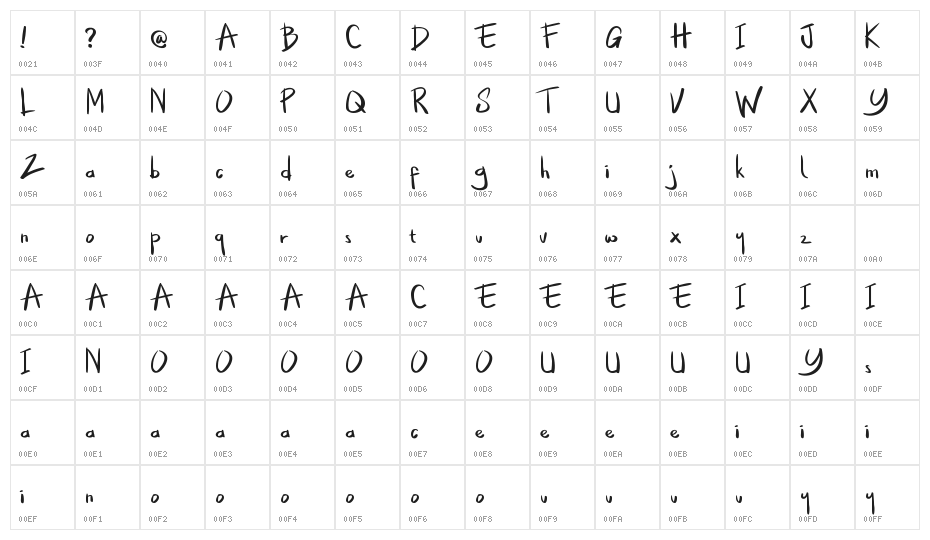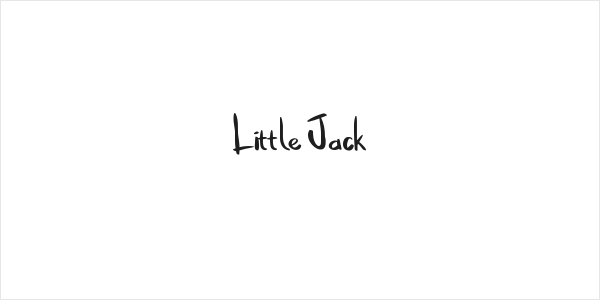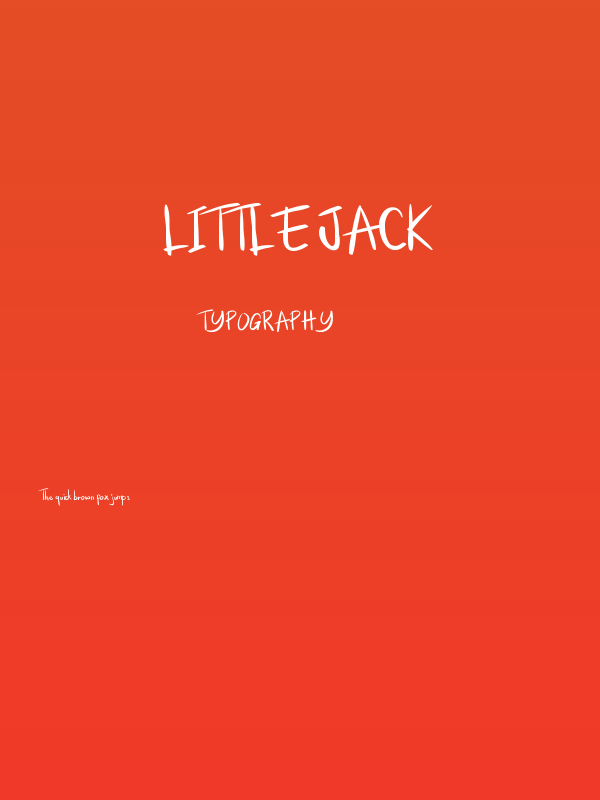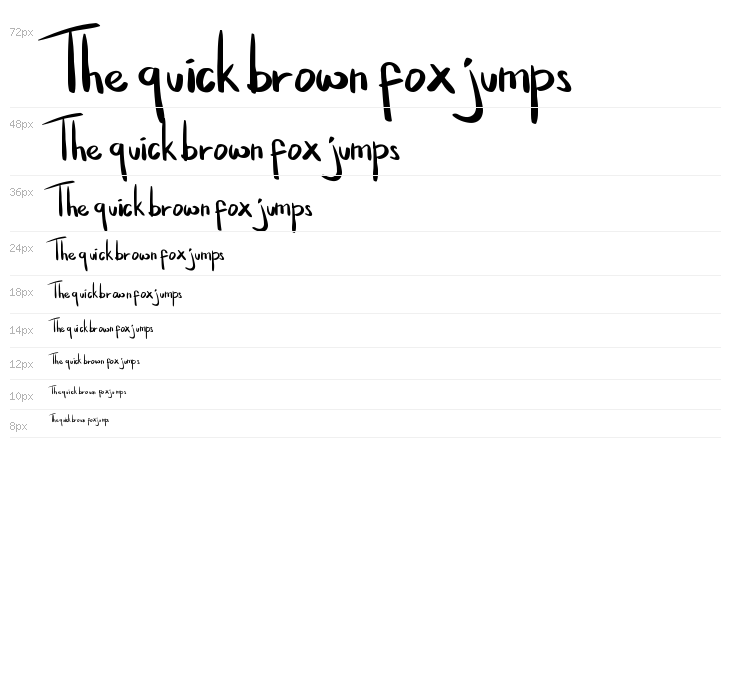
Little Jack Font
Little Jack Description
This playful and energetic font features a handwritten style with a casual, informal appearance. The letters are slightly irregular, giving it a lively and spontaneous feel. The strokes are bold and consistent, with a slight slant that adds to its dynamic character. The uppercase and lowercase letters are well-balanced, and the font includes a full set of numerals and a selection of punctuation marks. Its whimsical nature makes it perfect for projects that require a touch of personality and creativity.
| Proposed Projects | Ideal for children's books, greeting cards, playful branding, and creative posters. |